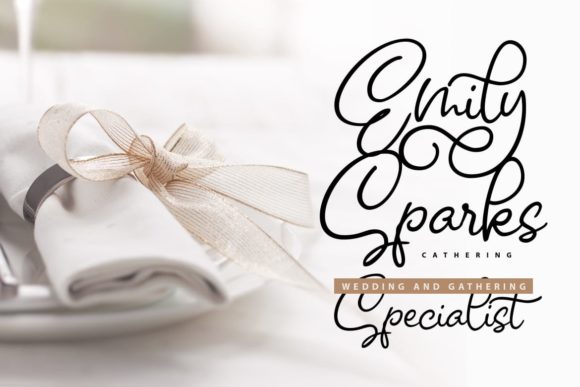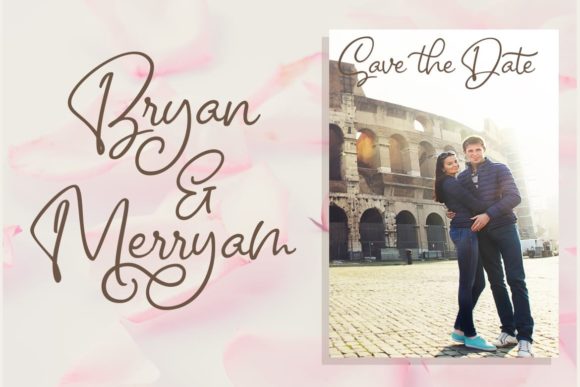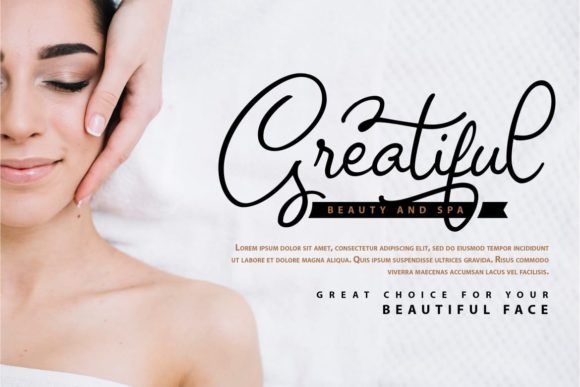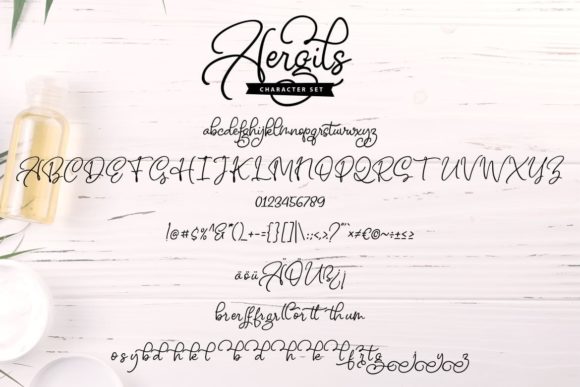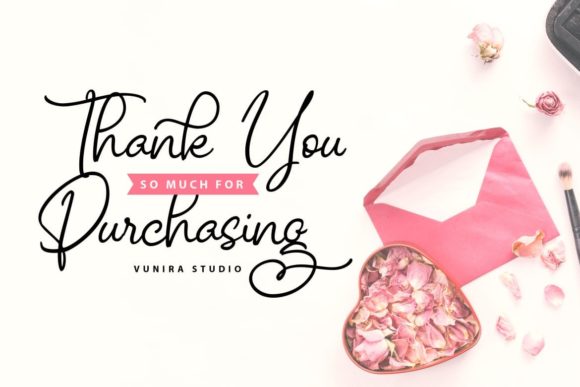
Aergils Font: Elevate Your Designs with Elegance and Sophistication
In the world of typography, a font can make or break a design. For designers and crafters seeking to add a touch of luxury and refinement to their work, Aergils Font is an exceptional choice. This beautiful and refined script font boasts a classy, elegant, and modern look, making it perfect for a wide range of applications, from logos and branding to invitations, stationery, wedding designs, and social media posts.
The Characteristics of Aergils Font
Aergils Font is designed to impress with its:
• Classy and Elegant Design: The font’s sophisticated style is ideal for creating high-end designs that exude luxury and refinement.
• Modern Look: Aergils has a fresh and contemporary feel, ensuring your designs stay on-trend and visually appealing.
• PUA Encoding: This font is PUA (Private Use Area) encoded, granting you easy access to all the amazing glyphs and ligatures. This feature allows for effortless customization and creativity in your designs.
One of the standout features of Aergils Font is its versatility. It can be used across various design projects, including:
• Logos and Branding: Create a lasting impression with a logo that embodies elegance and sophistication.
• Invitations and Stationery: Add a touch of class to your invitations, business cards, and letterheads.
• Wedding Designs: Make your wedding stationery, decor, and social media posts unforgettable with Aergils’ romantic and refined style.
• Social Media Posts: Elevate your online presence with stylish and engaging social media graphics.
Aergils Font offers numerous benefits for designers and crafters, including:
• Time Efficiency: With PUA encoding, you can quickly access and use a wide range of glyphs and ligatures, saving you time and effort in your design process.
• Creative Freedom: The font’s extensive features and flexibility allow you to experiment with different styles and ideas, giving you the freedom to bring your creative vision to life.
• Professional Results: Achieve high-quality, professional-looking designs that are sure to impress your clients or audience.
Tips for Using Aergils Font
To get the most out of Aergils Font, consider the following tips:
• Experiment with Ligatures: Take advantage of the font’s ligatures to add a unique touch to your designs.
• Play with Colors and Textures: Aergils Font looks stunning in various colors and textures. Don’t be afraid to experiment and find the perfect combination for your design.
• Pair it with Complementary Fonts: For added visual interest, pair Aergils with complementary fonts that match its elegance and sophistication.
Aergils Font is a versatile and elegant script font that can elevate your designs to new heights. With its classy and modern look, PUA encoding, and wide range of applications, it’s an excellent choice for designers and crafters seeking to add a touch of luxury and refinement to their work. Whether you’re creating logos, branding materials, invitations, or social media posts, Aergils Font is sure to impress.